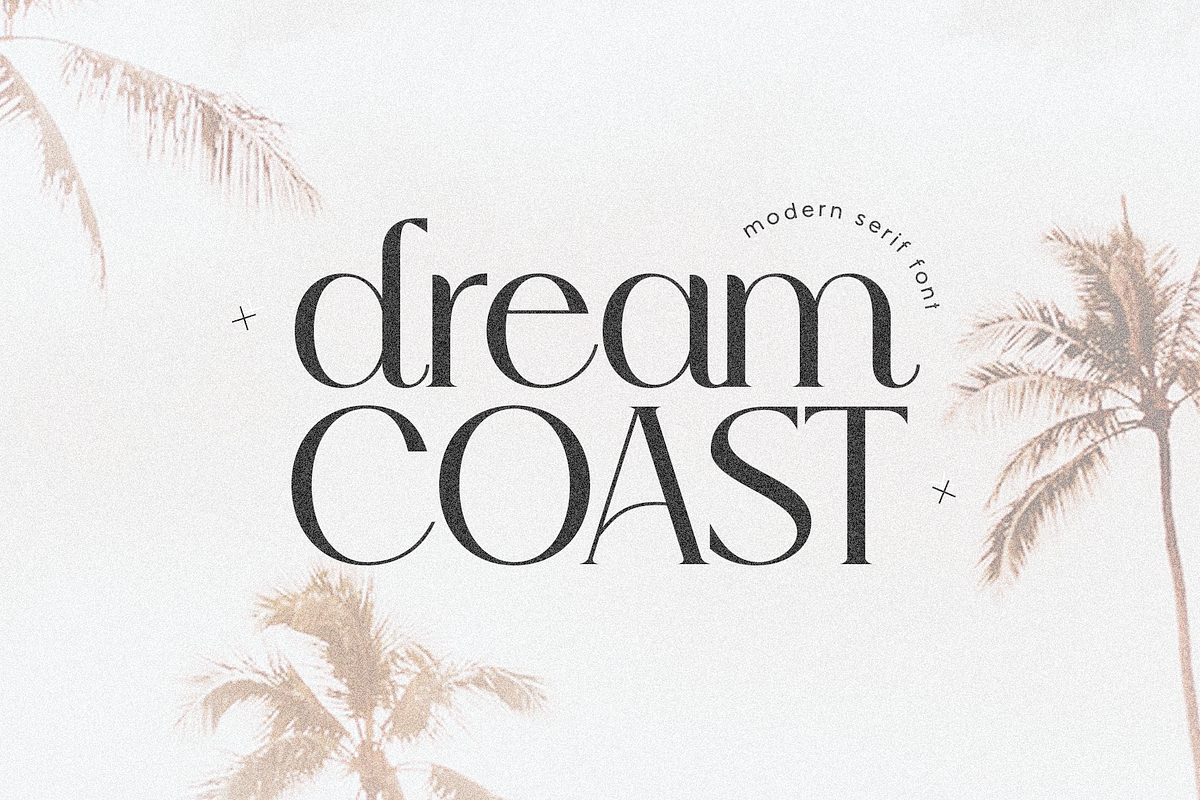
Dream Coast | Modern Serif Font Free Download
Boost your creative designs with Dream Coast | Modern Serif Font Free Download, an elegant and sophisticated typeface perfect for contemporary projects. You need to purchase this font for commercial use. For personal projects or testing, you can easily access Dream Coast | Modern Serif Font Free Download. This modern serif stands out with its refined details, offering versatility for branding, editorial layouts, logos, and more. Its classy and timeless aesthetic brings clarity and style, appealing to designers and content creators alike. Experience the exceptional quality of Dream Coast | Modern Serif Font Free Download today and make your projects effortlessly captivating.